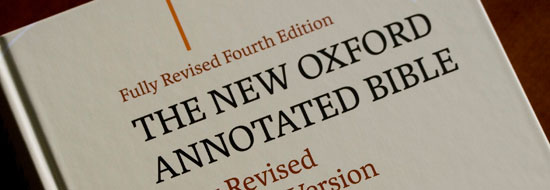
DateMarch 2010 | The Danish design studio 2Krogh AS choose Karmina and Karmina Sans as main typefaces for their project for the Oxford University Press. It is the new Oxford annotated bible for ecumenical studies. This big typefamily was very well used throughout the book in many different sizes and weights, fullfilling a variety of functions. It is a large volume of around 2000 pages printed on thin paper in excellent quality. | |